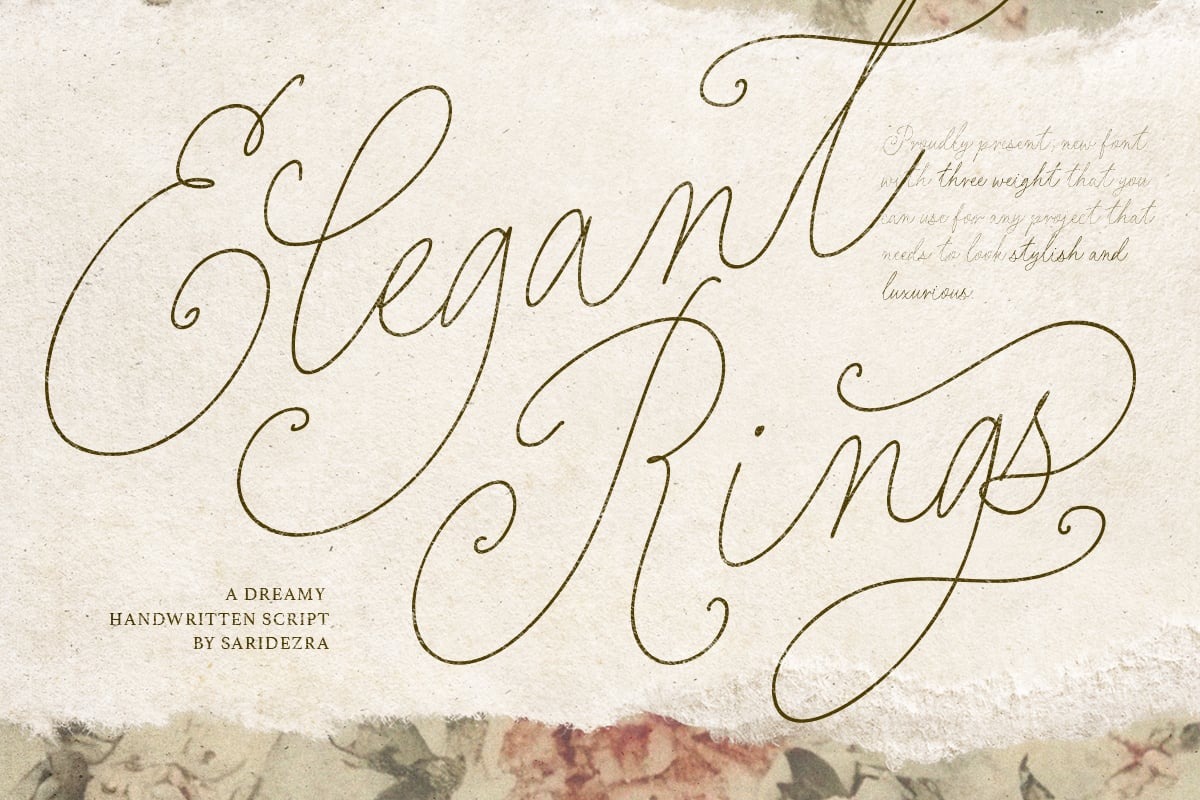
Elegant Rings – Handwritten Script Font
Elegant Rings – Handwritten Script Font is a versatile font designed to adapt beautifully across different design styles, offering dependable readability and balance. Proudly present, new handwritten script called Elegant Rings. This fonts comes with three weight, Light, Regular, and Bold that you can use for any purposes, such as elegant branding, logotype, wedding invitation, or any project that needs to look stylish and luxurious. With up to 6 stylish alternates that you can choose to make your designs even more stunning. And you will get OTF/TTF file that you can install and use in any software designs especially Adobe Photoshop and Adobe Illustrator. This Font also support multi language.